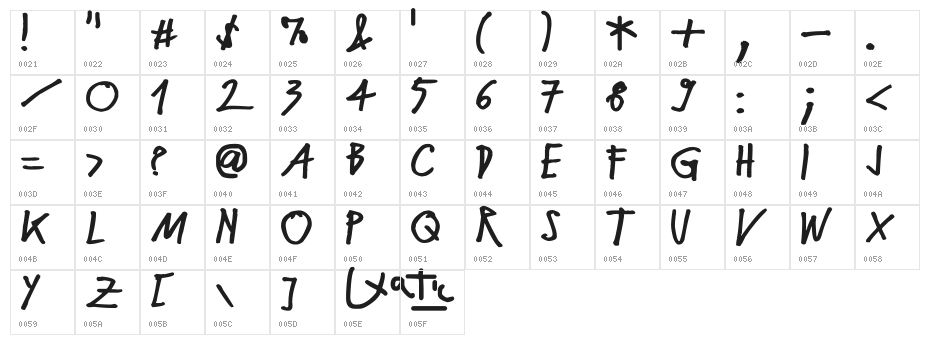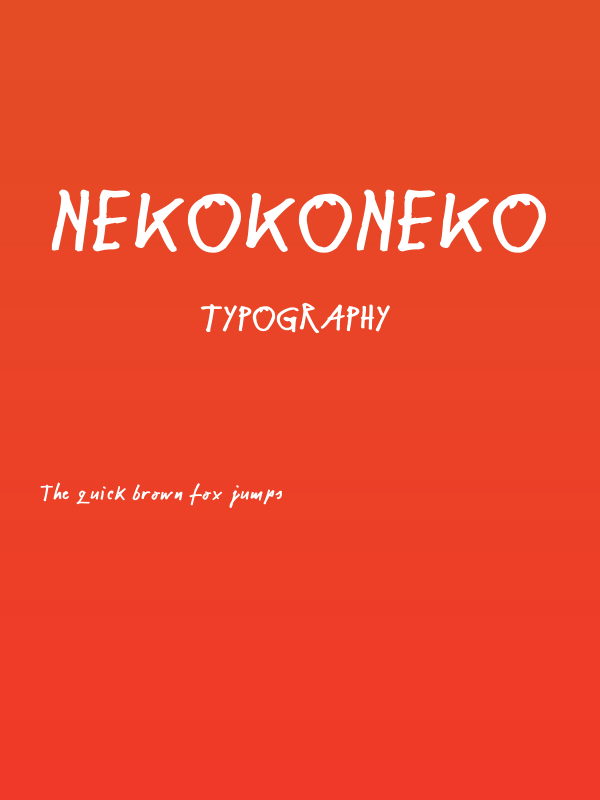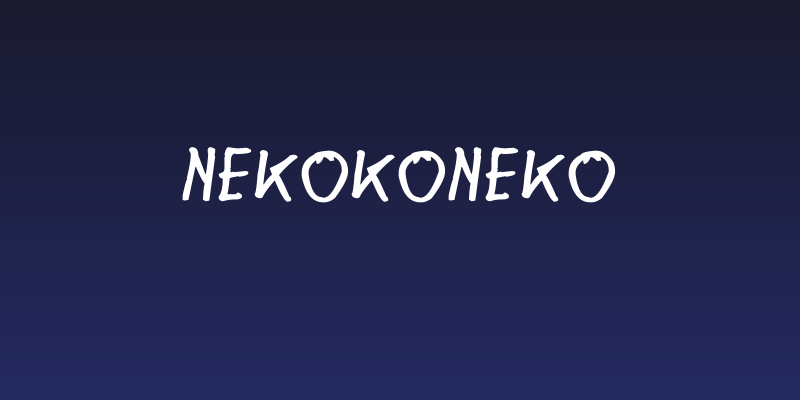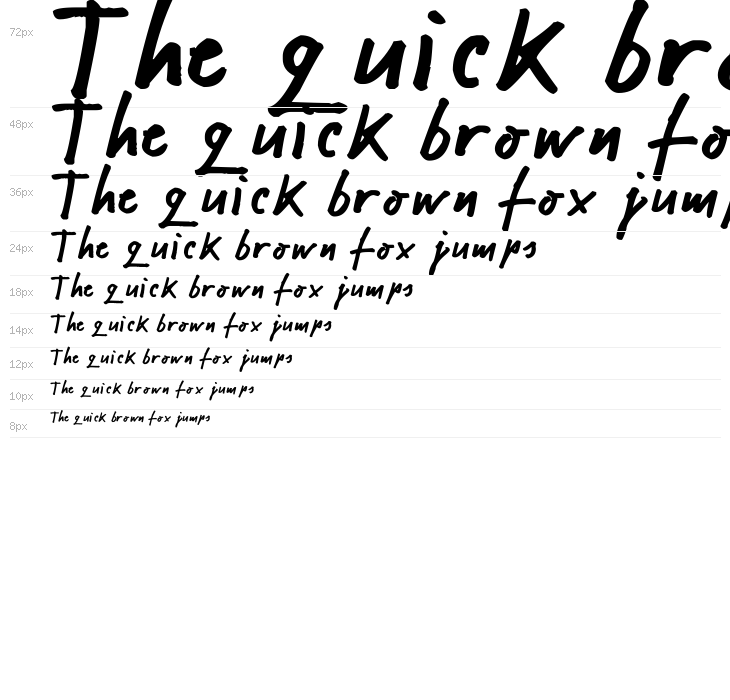
NekoKoNeko Font
NekoKoNeko Description
This font features a playful and dynamic handwritten style, characterized by its bold and expressive strokes. The letters have an informal, casual appearance, with varying angles and a slightly uneven baseline that adds to its charm. The uppercase letters are bold and prominent, while the lowercase letters maintain a consistent flow, enhancing readability. The numerals are clear and distinct, matching the overall style of the alphabet. Special characters are creatively integrated, maintaining the font's lively and energetic feel. This font is perfect for projects that require a personal touch or a sense of spontaneity.